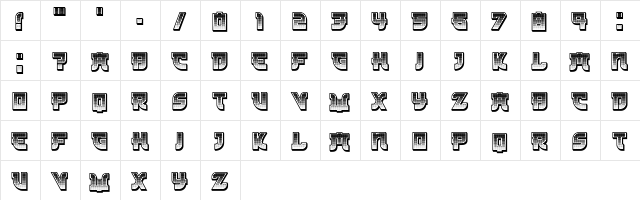
Kamikaze 3D Gradient Regular
Design Context for Kamikaze 3D Gradient Typeface
Kamikaze 3D Gradient is a composed and adaptable typeface that performs quietly and consistently across a wide range of design contexts.